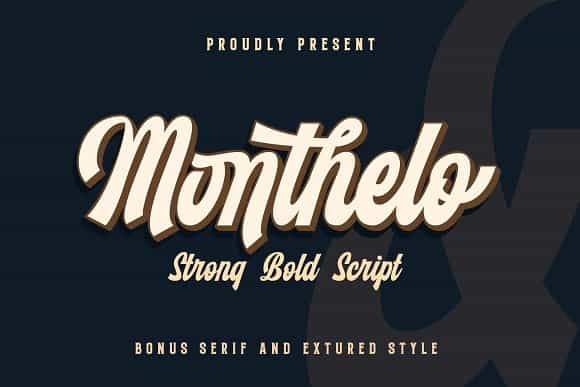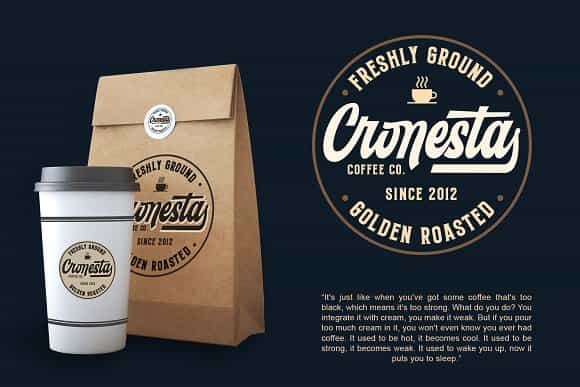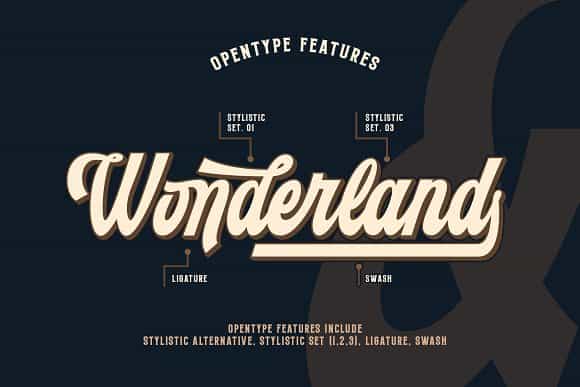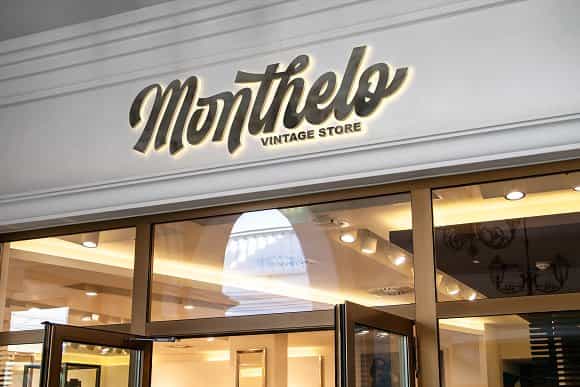
Introducing Monthelo Font! Monthelo was created and shared by Blankids Studio. Monthelo font draws its inspiration from vintage bar signage, hotel signage, barbershop signage and so on. Montelo has a classic look but it is still elegant which makes it perfect for modern and classical designs project.